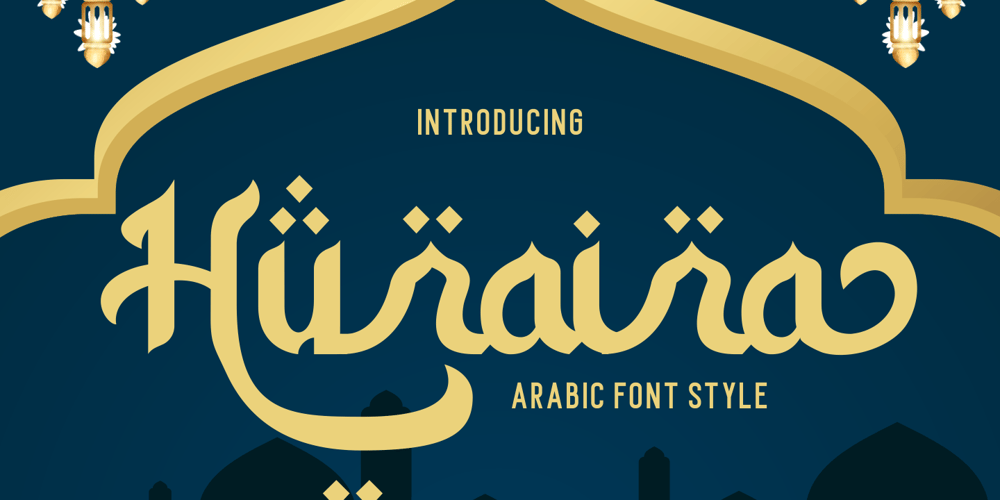
Huraira
Huraira font
Huraira Font Family was designed by Putra Novembria Candra Kusuma and published by Putracetol. Huraira contains 1 styles and family package options. Huraira – Arabic Font, a captivating digital typeface that beautifully captures the essence of Arabic calligraphy. With a design that closely resembles traditional Arabic letters, this font features the intricate inclusion of dots on select characters, mirroring the visual elegance of classic Arabic writing. Huraira brings an air of authenticity and cultural richness to your designs, making it a versatile and impactful choice across a spectrum of design applications.